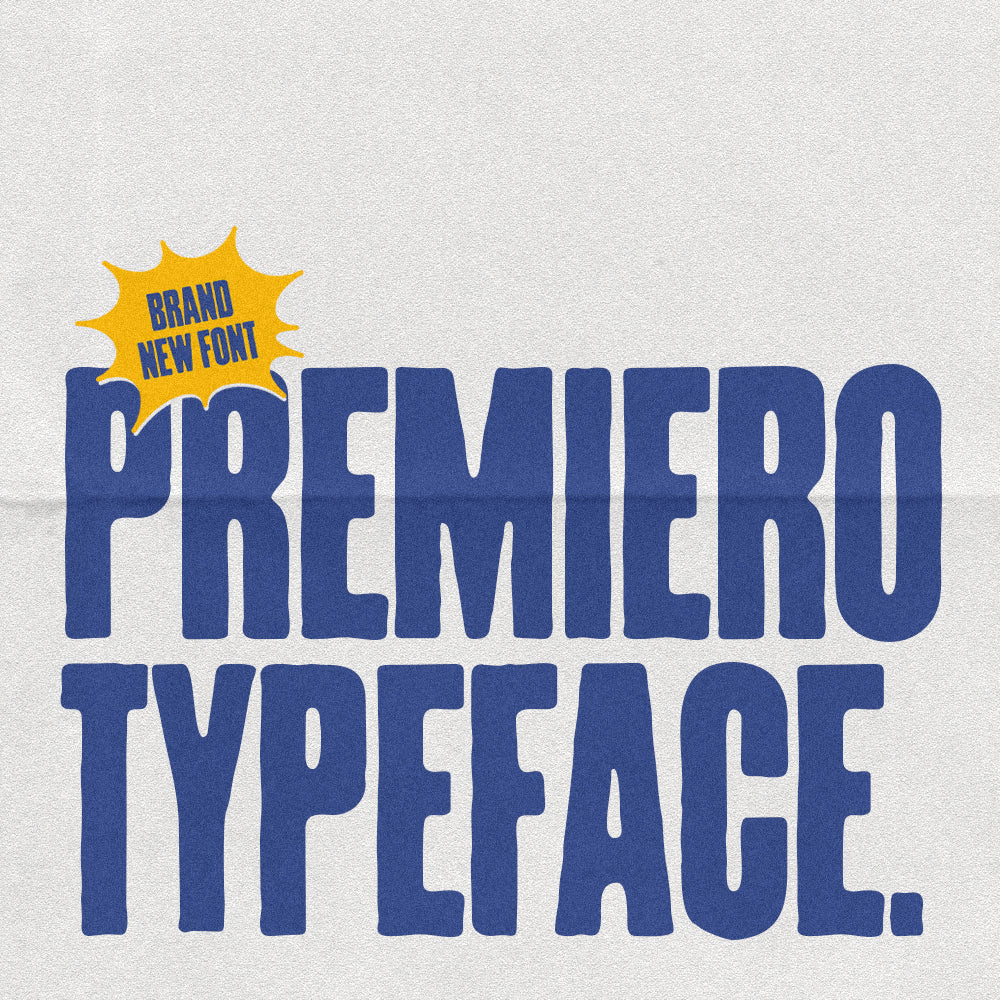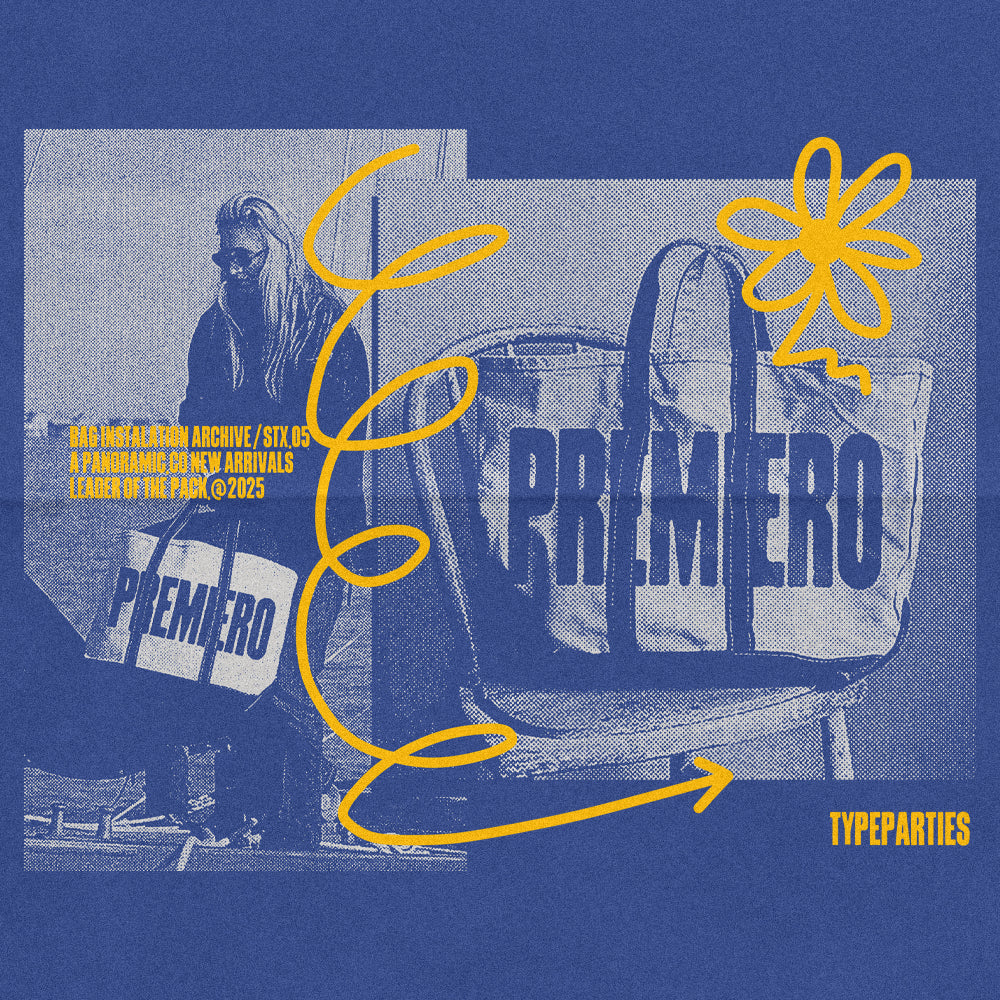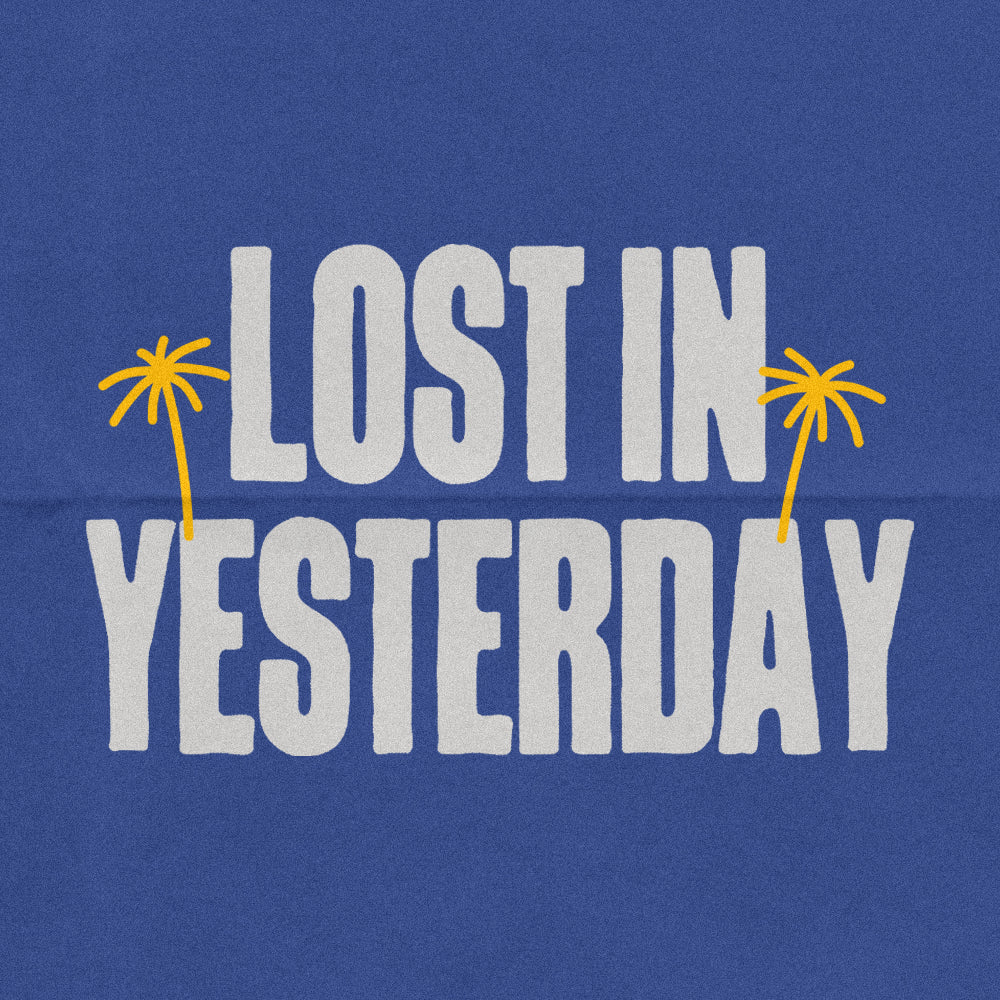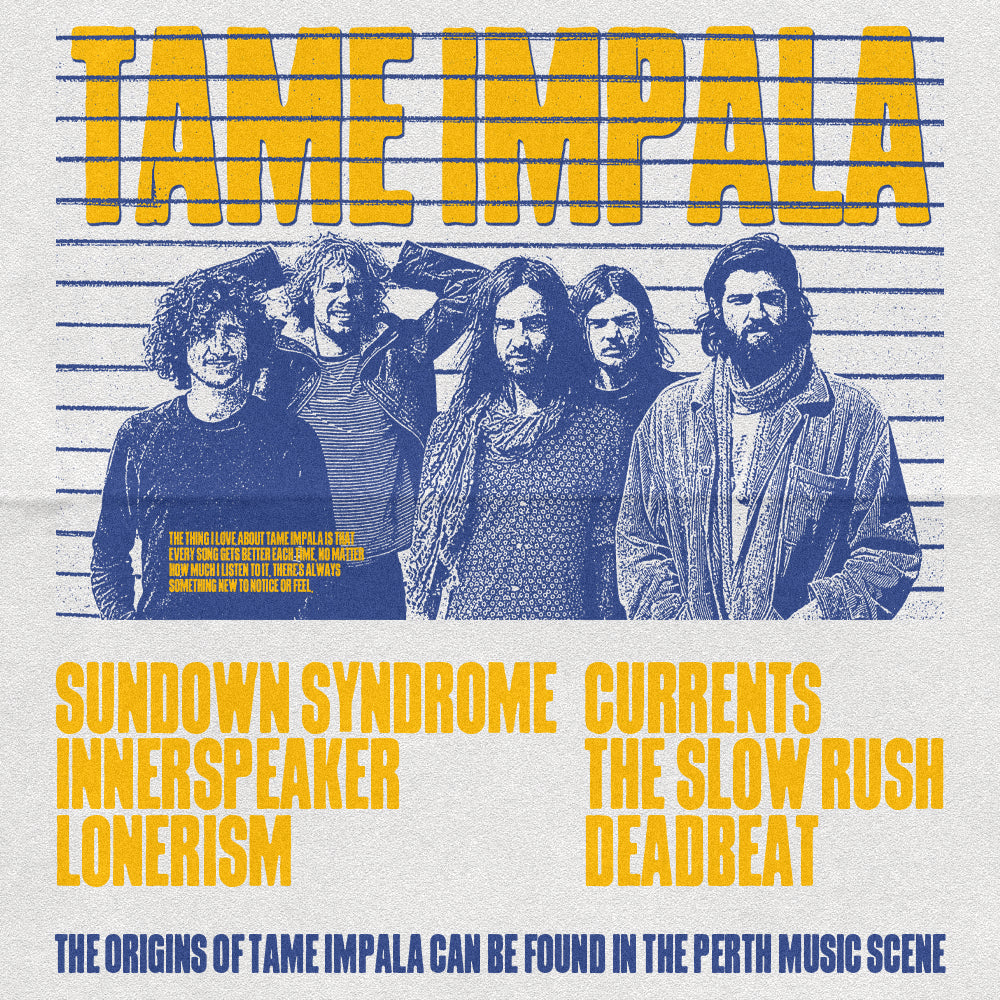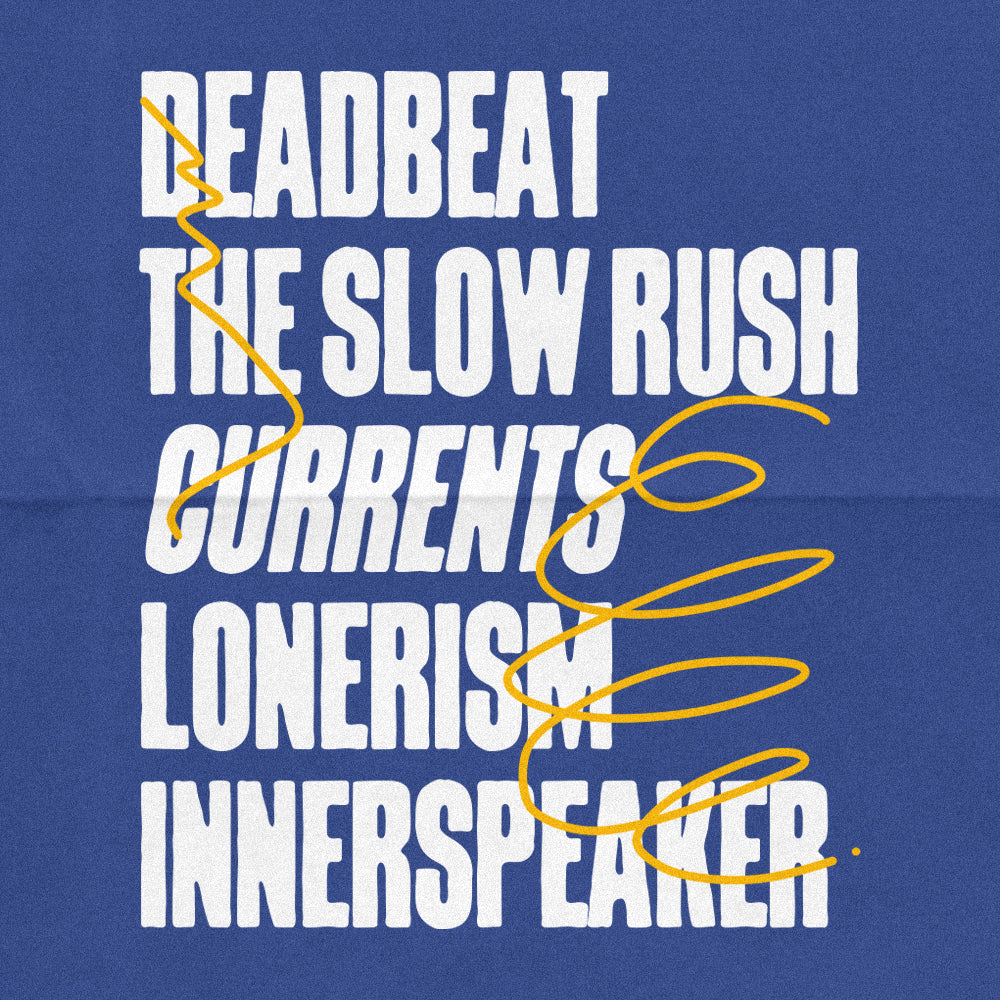
Premiero - Bold Condensed Sans Serif Font
Premiero is a bold, condensed sans serif font featuring all-caps, thick blocky shapes with subtle wavy edges and slight irregularities. Its distressed texture and rugged appearance provide a vintage feel, making it suitable for various design applications.